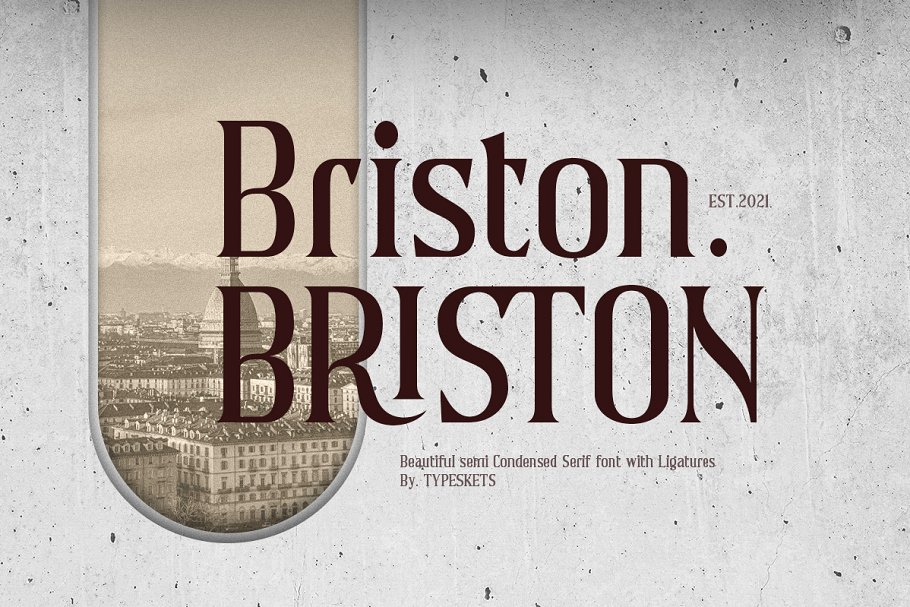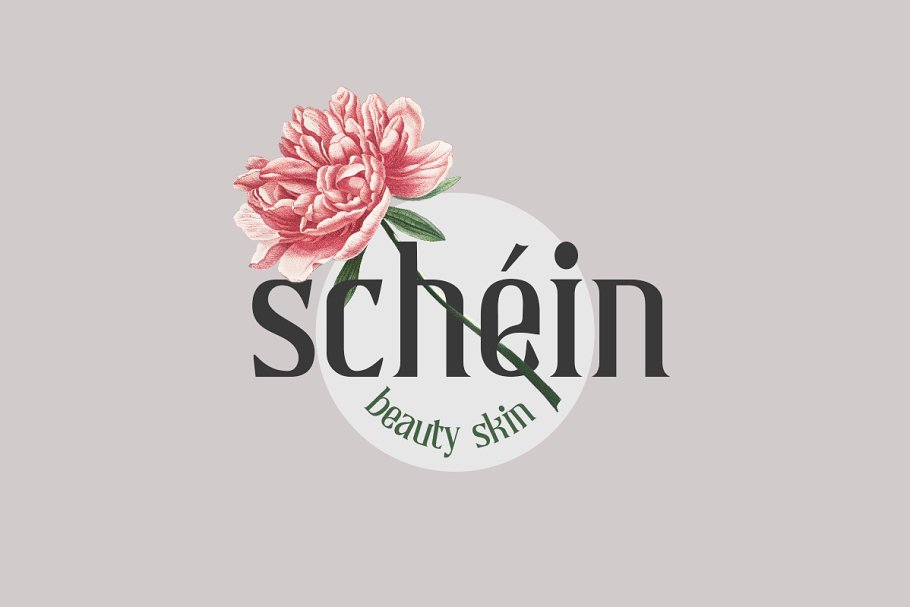
About the Briston Font
Briston is an elegant and incredibly authentic serif font, It has a vintage touch and an incredibly unique feel, so add it confidently and you will love the results, LetteredNumber & PunctuationLigaturesAccents Characters